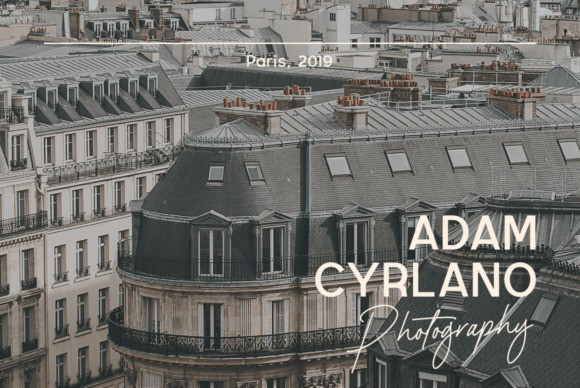
Deux Deriche Font
Introducing Cafe De Paris Duo Font the perfect duo font for all your design needs. The elegant handwritten font adds a personal touch, while the classic serif font adds sophistication. Combine them for a stunning result or use them separately for a polished look. Add class to any project with this timeless font pairing.